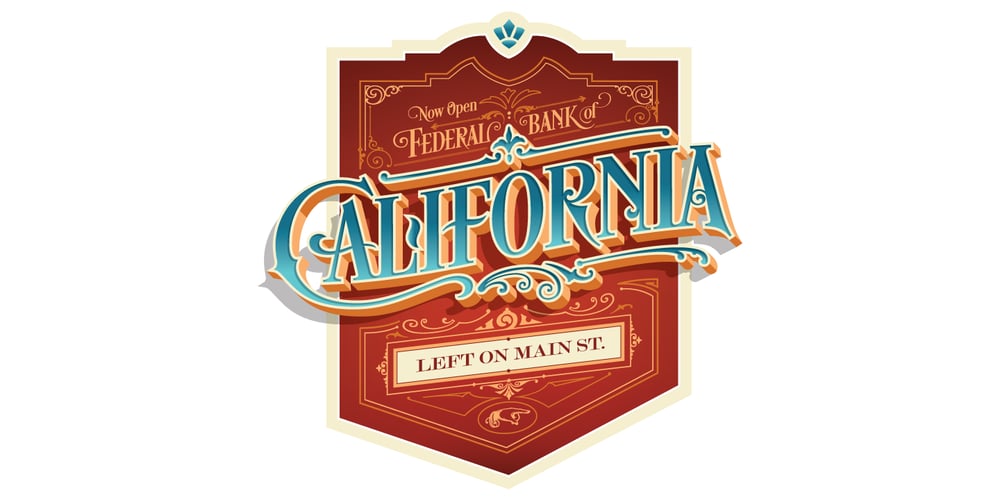
Desire Font Family was designed by Charles Borges de Oliveira and published by Borges Lettering. Desire contains 13 styles and family package options. With over five years of design and development, Desire is a pursuit of epic proportions and ready to make a statement by adding elegance and unique flair to your next design project. Cultivated by his passion of letters, Charles Borges de Oliveira has developed one of his largest typefaces to date. Featuring 644 alternate letters, 98 ligatures, 8 flourishes and 6 catchwords, Desire offers an expansive set of options to create logos, headlines and titling. It is well suited for book covers, editorial, packaging, advertising, branding and more. From period style and Victorian to modern and elegant, Desire is strong and stately yet elegant and decorous. Some of the alternate uppercase forms feature delicate line flourishes creating a subtle background for additional letters to rest – the result is an intertwining and beautifully flourished design. Unique ligatures go beyond function and add eye catching flair and style. You’ll enjoy experimenting with the different flourishes and styles. It’s a different font every time you use it. Desire is truly a designer’s dream come true! A little video showing how to use Desire in Illustrator CC https://www.youtube.com/watch?v=t4Rb6_qC5tk http://www.youtube.com/watch?v=ANqbPyUa3Yk A note from MyFonts: to see some of the available Stylistic Sets, try selecting a different selection from the Sample text: drop-down option. PLEASE NOTE: If your design software has access to the glyphs palette then please only install the Desire PRO font. As this keeps all of the kerning intact and you have access to all of the alternates, ligatures, catchwords and flourishes. Examples of design software that use the glyph’s palette are Illustrator, InDesign, Corel and various others. If your software does not have a glyphs palette then you can either use the Windows character map (if you are on a PC) or an outside character map. A good one is PopChar. Their website is: http://www.ergonis.com/products/popcharx/ If you choose to not use an outside character map then please install Desire Basic and the other 11 font files. This has Desire broken down into multiple fonts so you can access all of the alternates, ligatures, catchwords and flourishes. The only downside to this is the kerning is lost. Instructions are included in the Desire Character Map PDF.